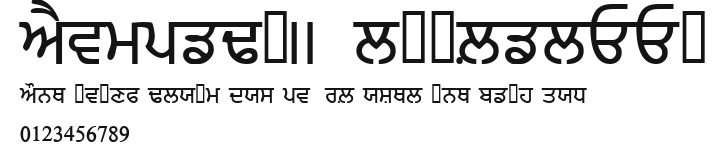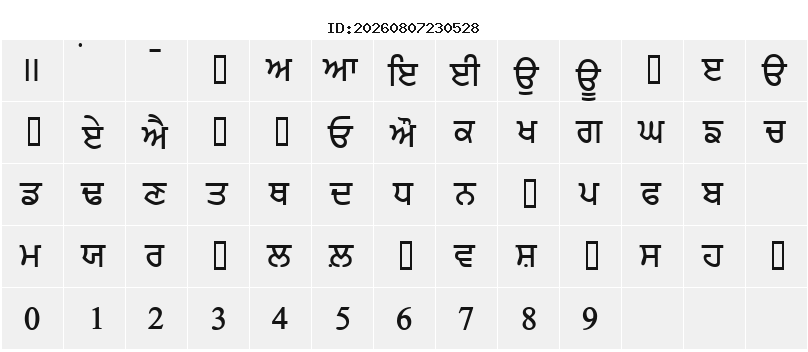
PunjabiAmritsarSSK Preview
• Font Name: PunjabiAmritsarSSK
• Font ID: Macromedia Fontographer 4.1 PunjabiAmritsarSSK Bold
• Full Font Name: PunjabiAmritsarSSK Bold
• Version: Macromedia Fontographer 4.1 8/15/95
• PostScript Name: PunjabiAmritsarSSKBold
• Character Count: 148
About PunjabiAmritsarSSK.ttf
PunjabiAmritsarSSK.ttf is a modern, elegant sans-serif font designed for ultimate readability and visual harmony. Perfect for branding, headlines, web design, and print materials.